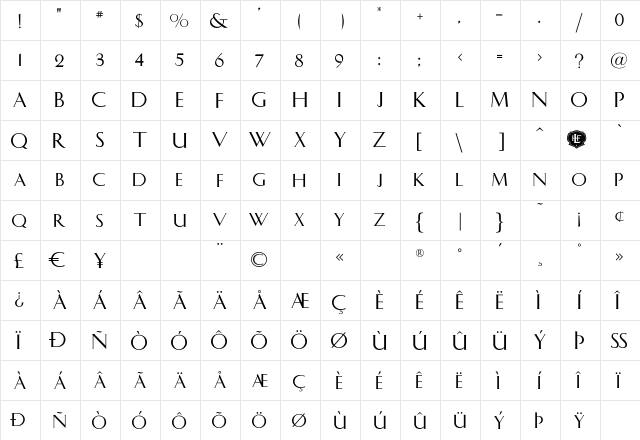
LHFCharlotte Regular Font Preview
LHFCharlotte Regular
LHFCharlotte Regular Font Details
Design Context for LHFCharlotte Typeface
LHFCharlotte is a composed and adaptable typeface that performs quietly and consistently across a wide range of design contexts.